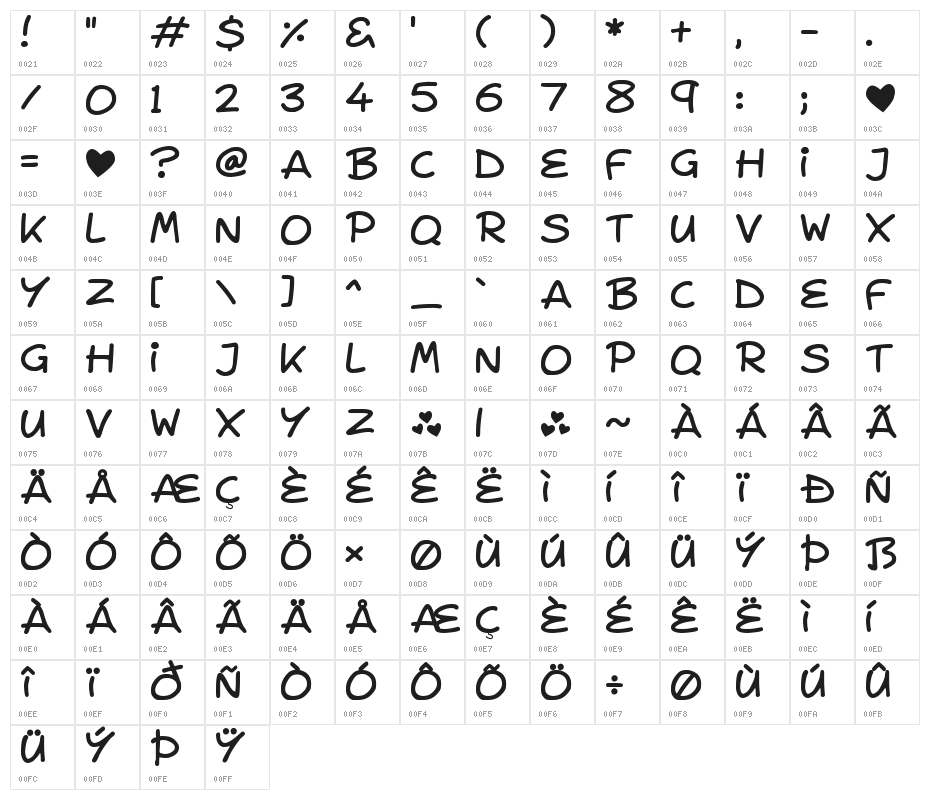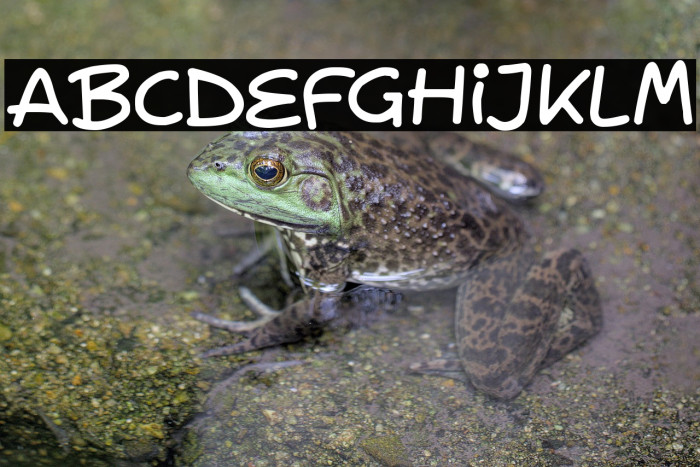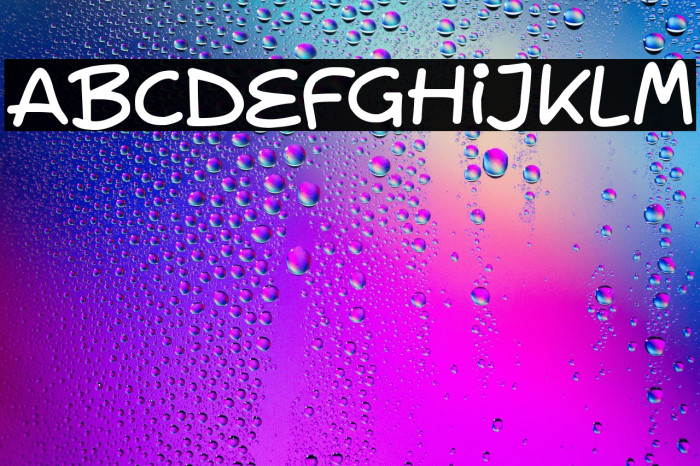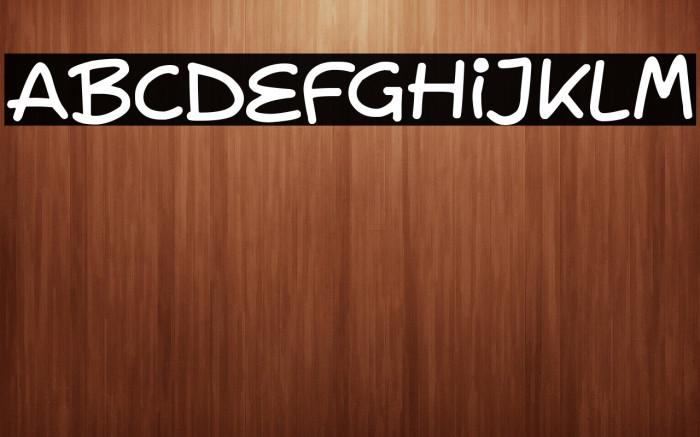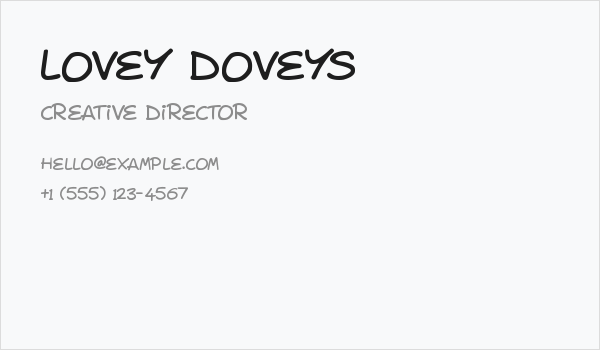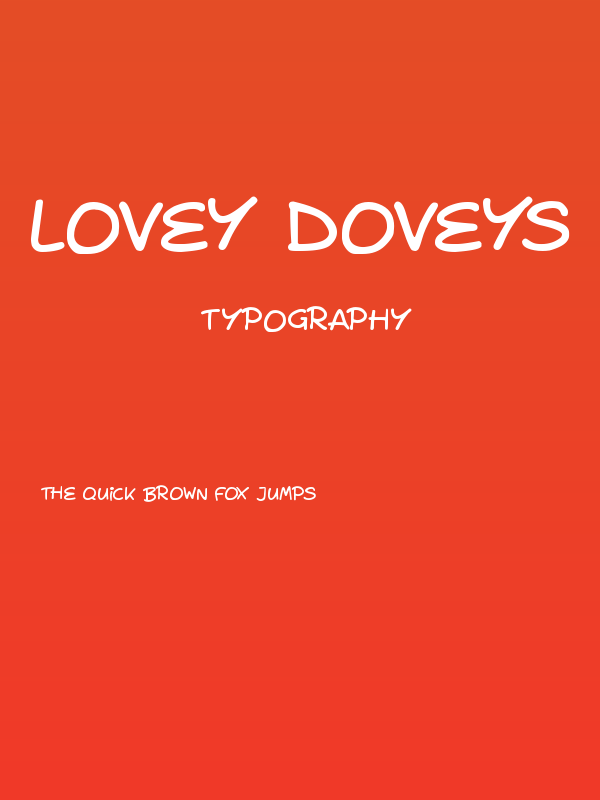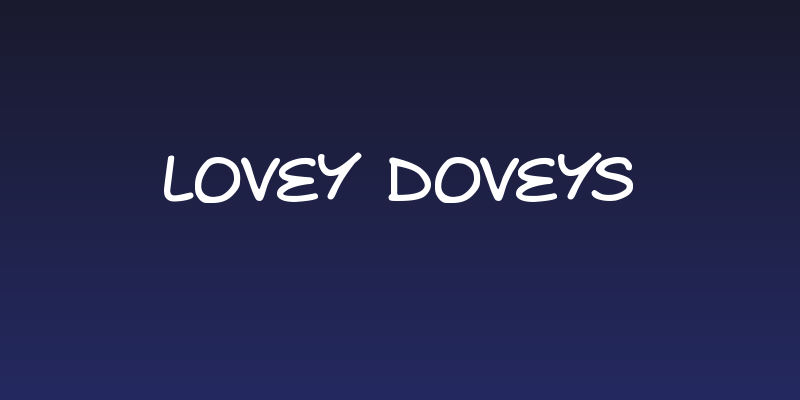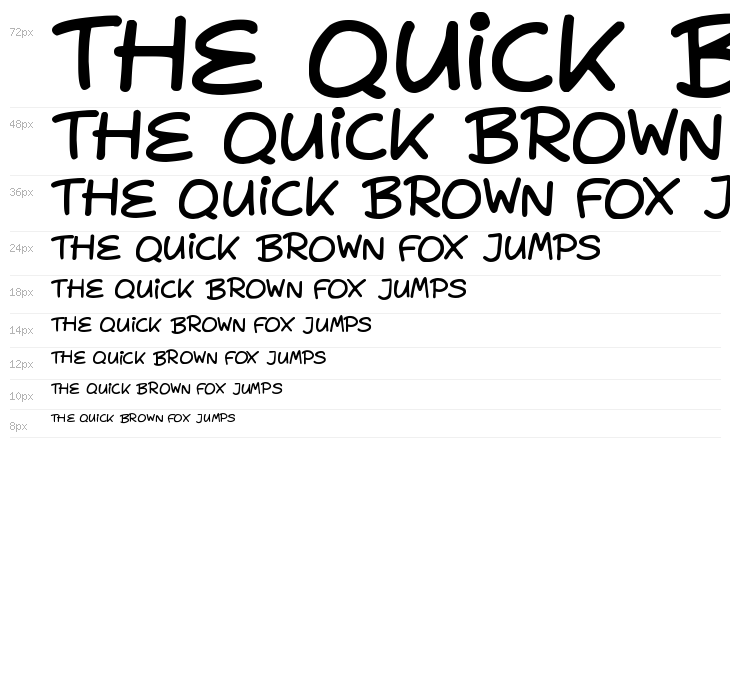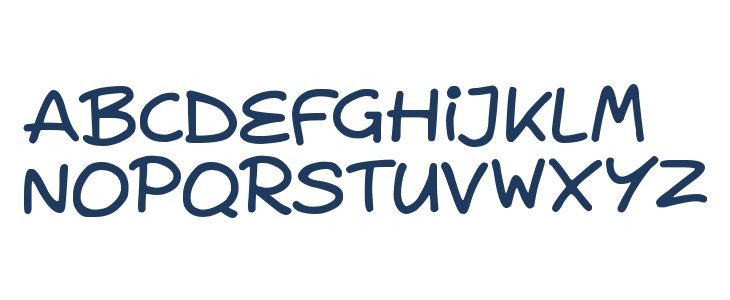
Lovey Doveys Font
Lovey Doveys Description
This playful and whimsical font features rounded, bold characters with a handwritten style. The letters are slightly slanted, giving a casual and friendly appearance. The strokes are consistent in thickness, providing a uniform look across all characters. The font includes both uppercase and lowercase letters, numerals, and a variety of special characters. Its informal and approachable design makes it suitable for projects that require a personal touch.
| Proposed Projects | Ideal for greeting cards, children's books, playful branding, and casual invitations. |